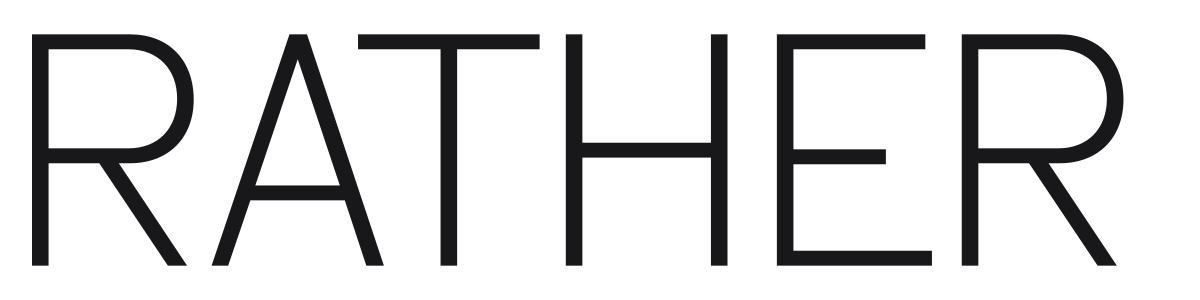
Rather
Rather is a light geometric sans-serif built on clean circular construction and near-monoweight strokes. Its generous proportions and airy spacing give it a quiet elegance that reads easily at large sizes. A natural choice for branding, editorial layouts, and anything that benefits from understated refinement.